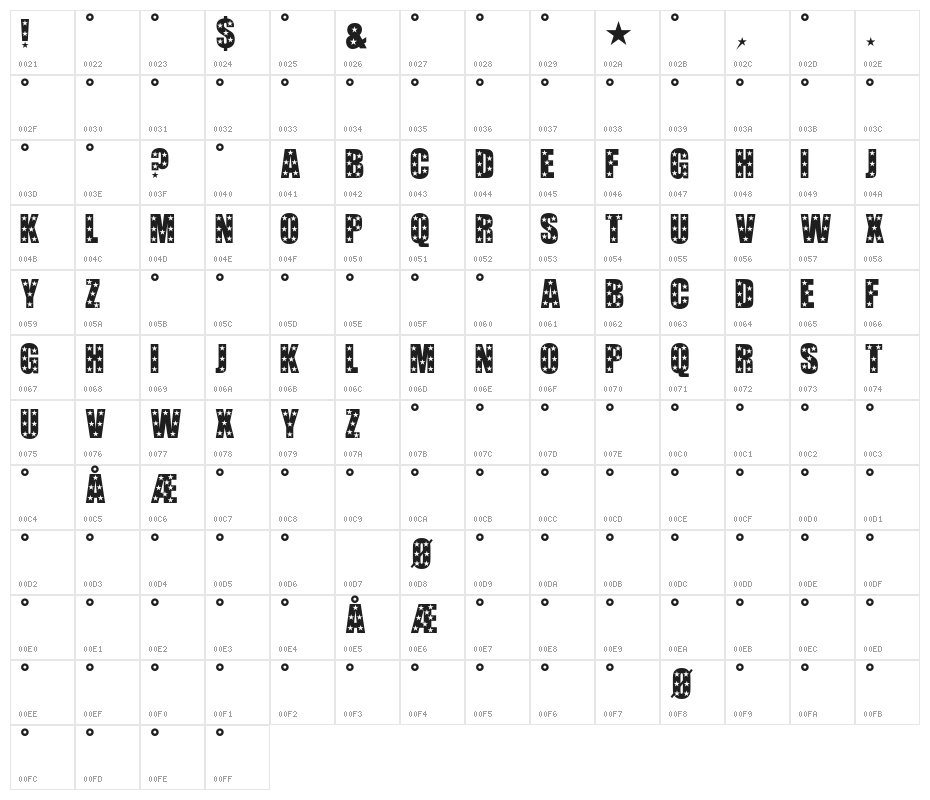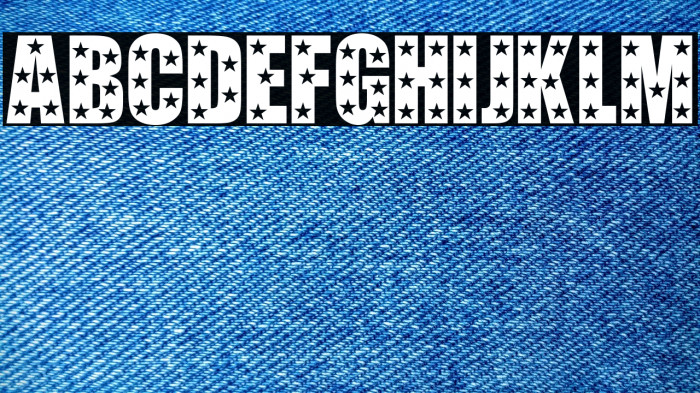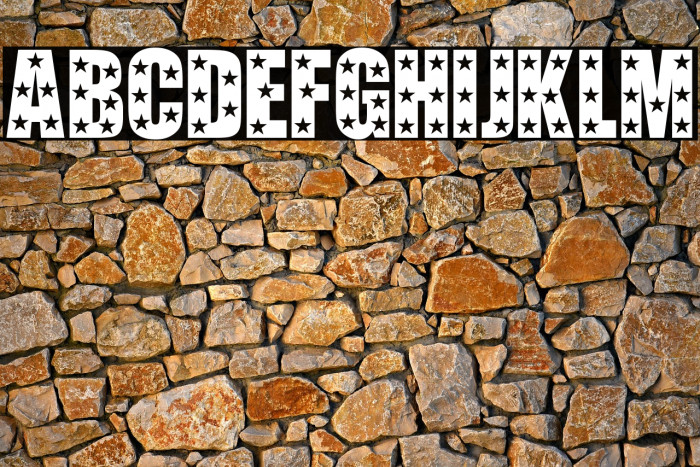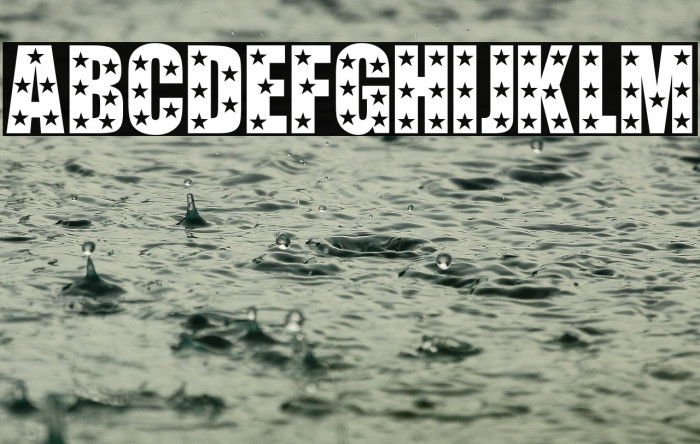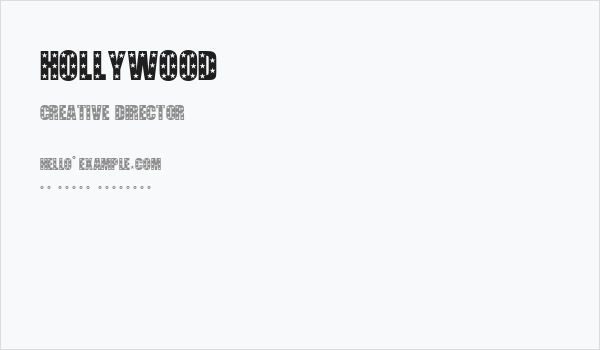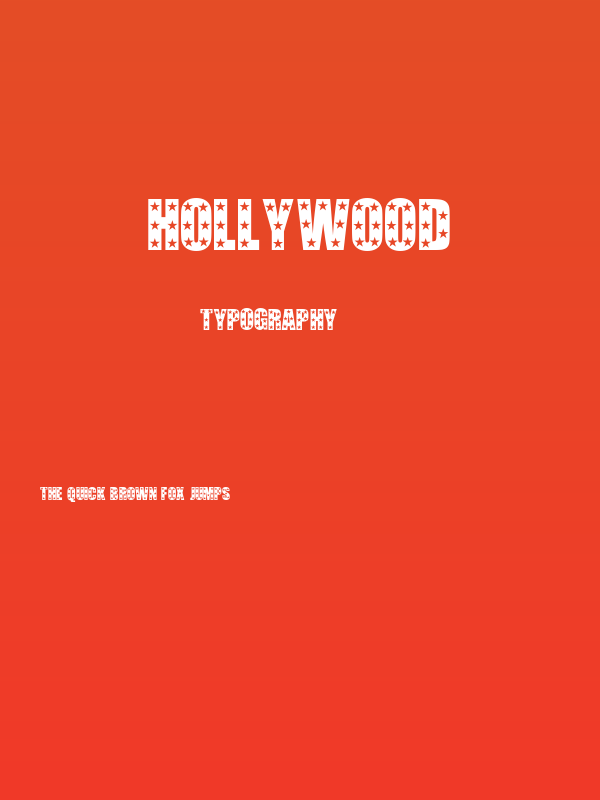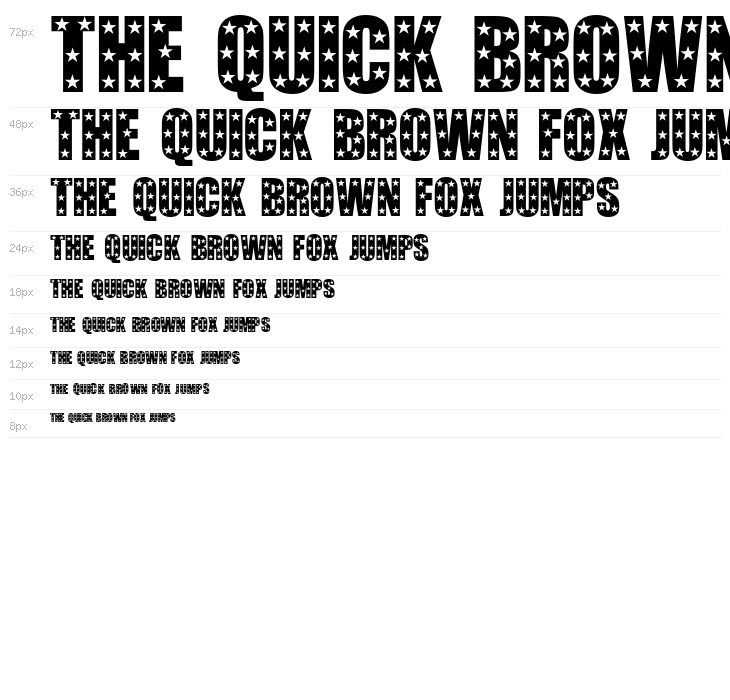
Hollywood Font
Hollywood Description
This font features bold, uppercase letters filled with star patterns, creating a striking and eye-catching design. The characters are uniformly bold with a consistent star motif throughout, making it ideal for decorative purposes. The font's playful and dynamic style is reminiscent of classic Hollywood glamour, with a modern twist. The stars within each letter add a sense of movement and sparkle, making it perfect for projects that require a touch of whimsy and excitement. The font is best suited for large displays where its intricate details can be appreciated.
Proposed ProjectsIdeal for movie posters, event invitations, party decorations, and any project needing a glamorous, Hollywood-inspired aesthetic.